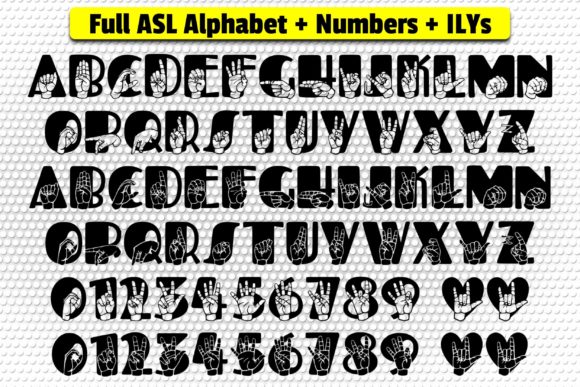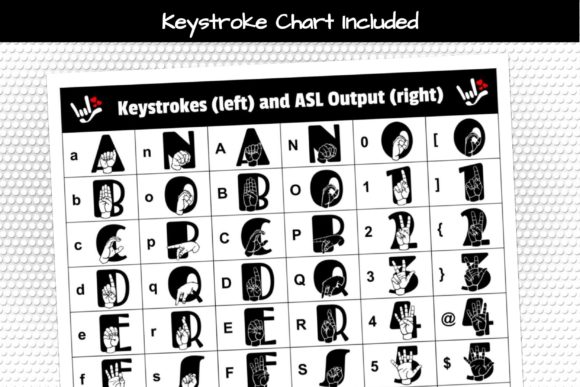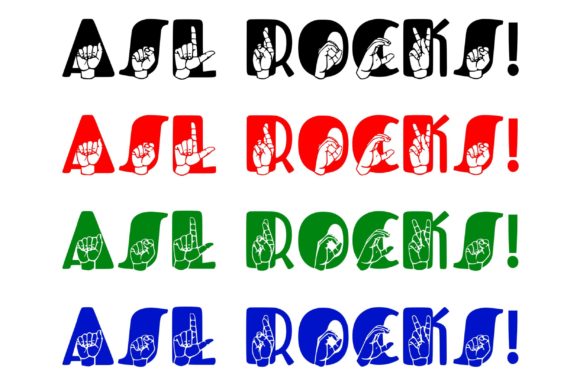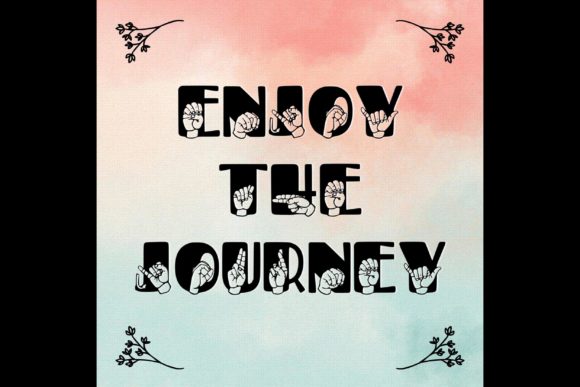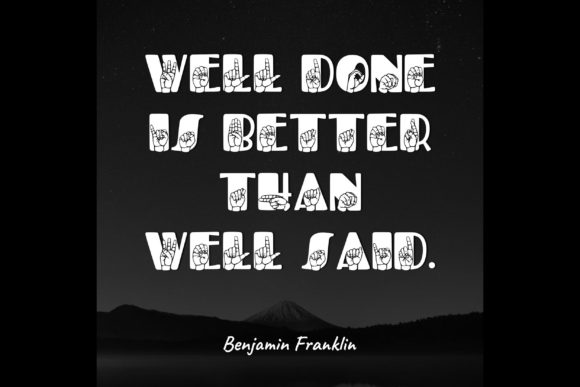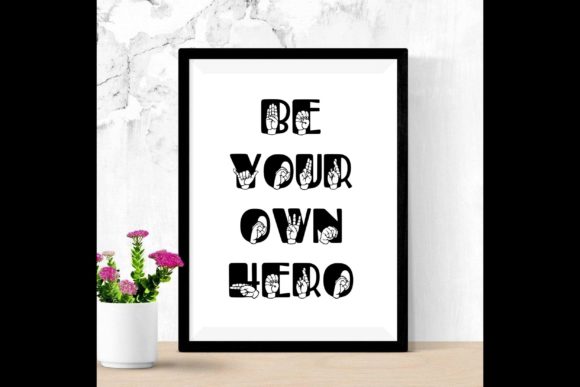
Unlock Endless Design Possibilities with Able Lingo ASL 3 Font
Are you a designer or crafter looking for a unique and versatile font to elevate your creative projects? Look no further than the Able Lingo ASL 3 Font, a cool and useful dingbats font that’s perfect for adding a touch of personality to any design. In this article, we’ll explore the features and benefits of this amazing font, and show you how to make the most of its endless possibilities.
What is Able Lingo ASL 3 Font?
Able Lingo ASL 3 Font is a dingbats font that offers a wide range of symbols, icons, and graphics that can be used to add visual interest to your designs. The font is carefully crafted to provide a unique and creative way to communicate your message, making it perfect for a variety of applications, including food menus, posters, flyers, and prints.
Key Features of Able Lingo ASL 3 Font
• Unique and Creative Symbols: The Able Lingo ASL 3 Font features a vast collection of unique and creative symbols that can be used to add a touch of personality to your designs.
• High-Quality Design: The font is designed with high-quality and precision, ensuring that it looks stunning on any medium, whether digital or print.
• Versatile: The Able Lingo ASL 3 Font is versatile and can be used for a wide range of applications, including food menus, posters, flyers, and prints.
Benefits of Using Able Lingo ASL 3 Font
Using the Able Lingo ASL 3 Font in your designs offers a range of benefits, including:
• Stand Out from the Crowd: The unique and creative symbols in the font can help your designs stand out from the crowd and grab attention.
• Enhance Your Brand: The font can be used to enhance your brand and add a touch of personality to your marketing materials.
• Save Time: The font is easy to use, saving you time and effort in designing and creating your projects.
• Endless Possibilities: The font offers endless possibilities for creative expression, allowing you to experiment and try new things.
How to Use Able Lingo ASL 3 Font
Using the Able Lingo ASL 3 Font is easy and straightforward. Here are some tips to get you started:
• Choose Your Symbols: Browse through the font and choose the symbols that best fit your design.
• Experiment with Different Sizes and Colors: Experiment with different sizes and colors to add depth and interest to your design.
• Combine with Other Fonts: Combine the Able Lingo ASL 3 Font with other fonts to create a unique and creative look.
Design Ideas Using Able Lingo ASL 3 Font
The Able Lingo ASL 3 Font can be used in a wide range of design applications, including:
• Food Menus: Use the font to create eye-catching food menus that showcase your restaurant’s personality.
• Posters: Create stunning posters that grab attention and communicate your message.
• Flyers: Use the font to create flyers that stand out from the crowd and get noticed.
• Prints: Add a touch of personality to your prints, including brochures, catalogs, and more.
In conclusion, the Able Lingo ASL 3 Font is a cool and useful dingbats font that offers endless possibilities for creative expression. With its unique and creative symbols, high-quality design, and ease of use, this font is perfect for designers and crafters looking to add a touch of personality to their designs. Whether you’re creating food menus, posters, flyers, or prints, the Able Lingo ASL 3 Font is sure to impress.